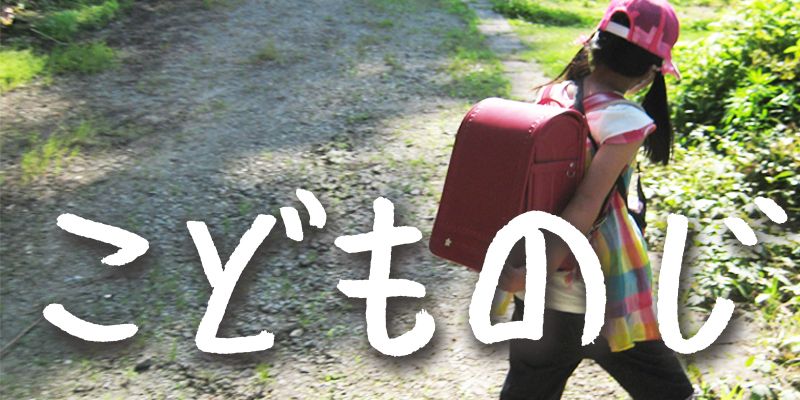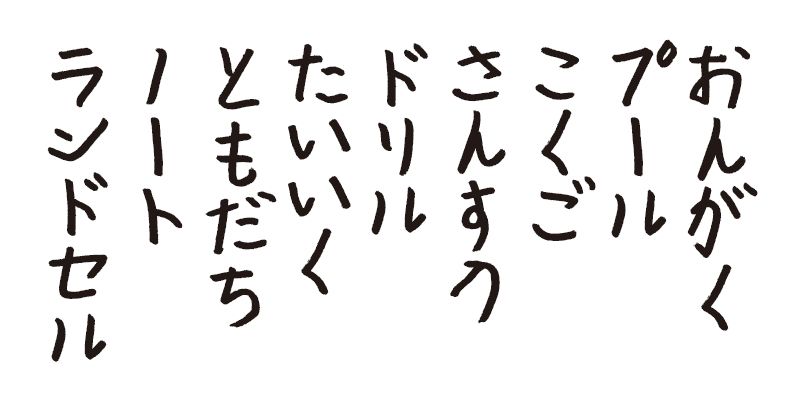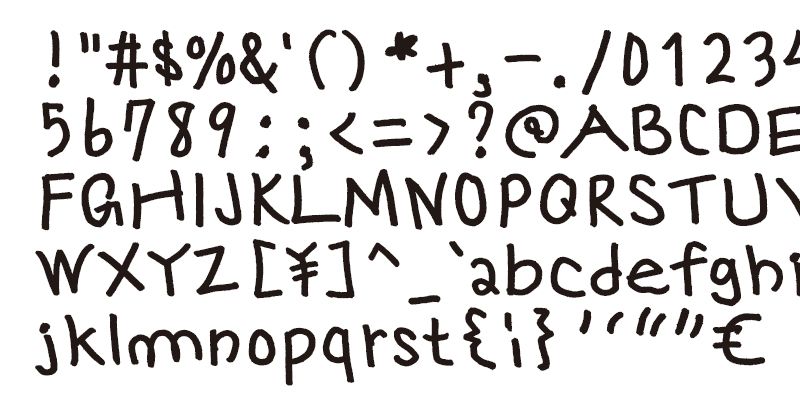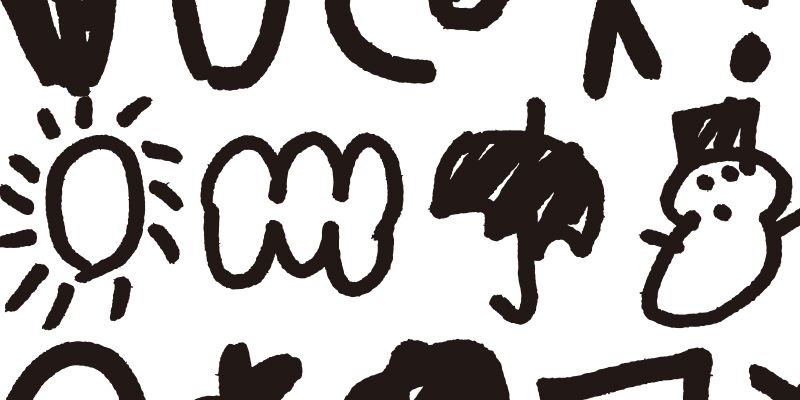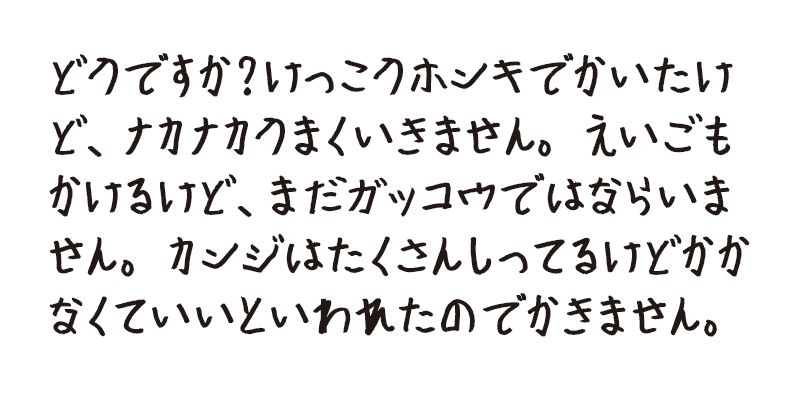
I designed this typeface based on a set of characters written by a first grade elementary student. The font includes only hiragana, katakana, numbers, Latin glyphs and some symbols.